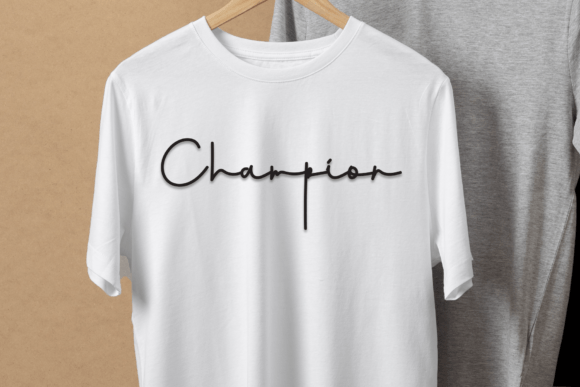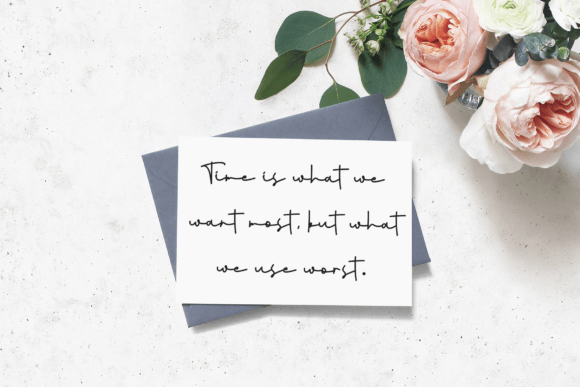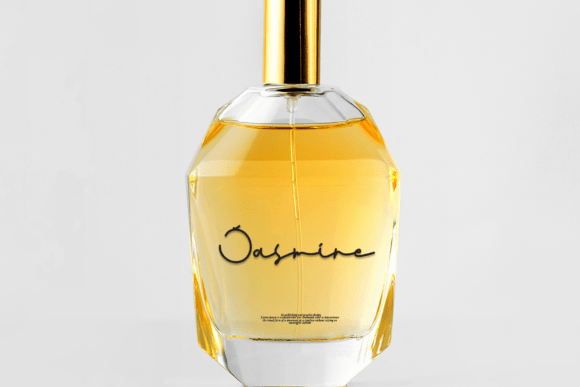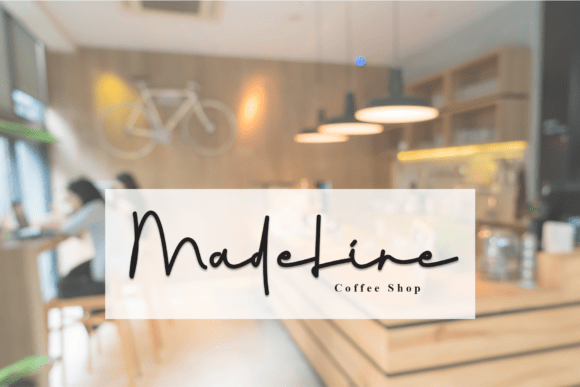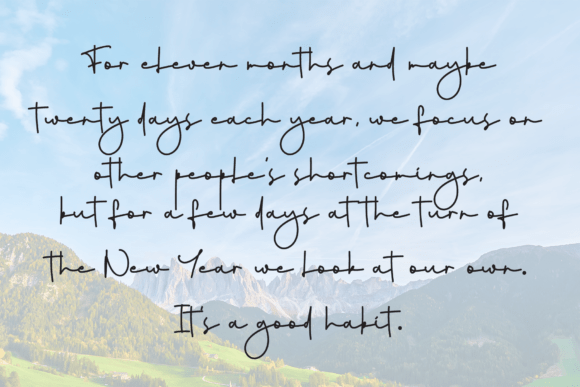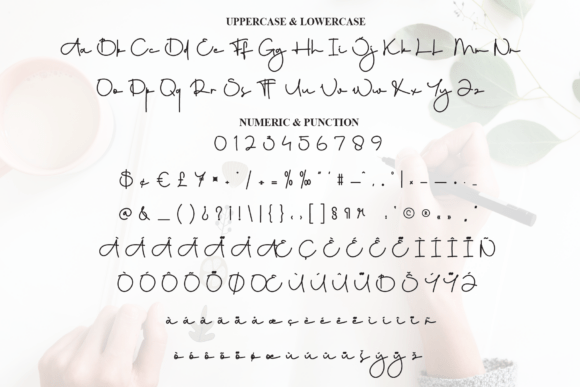
Elevate Your Design with the Timeless Charm of Amelia Signature Font
Have you ever been stuck on a design project, unsure of how to convey the essence of your brand’s personality? You’re not alone. It’s a common creative conundrum that can leave even the most seasoned designers feeling stumped. But what if you had the perfect tool to help you unlock that elusive je ne sais quoi?
Enter the Amelia Signature Font, a luxurious monoline script font that brings a touch of natural, hand-crafted elegance to your designs. Whether you’re creating a logo, personal branding materials, or upscale packaging, Amelia’s refined charm is sure to elevate your identity and leave a lasting impression. As a designer, you know the value of a well-crafted font in setting the tone for your brand’s image. With Amelia Signature Font, you’ll have the perfect tool to convey sophistication, style, and refinement in every design.
Amelia Signature Font Key Features
• Unique Characteristics: The Amelia Signature Font features elegant, flowing lines and subtle flourishes, adding a touch of sophistication to signatures.
• Script Variations: Includes multiple script variations, allowing users to choose the perfect style to match their personal branding.
• Font Weight: Available in Light, Regular, and Bold weights, providing flexibility for users to customize their signature appearance.
Amelia Signature Font Review
As a designer, I was excited to dive into the Amelia Signature Font and see what it has to offer. Overall, I think it’s a solid choice for anyone looking for a beautiful, elegant script font.
• The Amelia Signature Font is incredibly versatile and can be used for a wide range of applications, from invitations to wedding stationery.
• The font is highly customizable, with a range of OpenType features that allow for advanced typography and styling options.
• The Amelia Signature Font is also highly legible, making it perfect for body text or headlines.
• The font may not be suitable for digital applications, as it’s not optimized for screen reading.
• The font is a bit more challenging to use in smaller font sizes, as the strokes can become a bit thin and hard to read.
Overall, I think the Amelia Signature Font is a beautiful and elegant script font that’s perfect for designers looking for a high-end, sophisticated look. While it may have some limitations, I think the benefits far outweigh the drawbacks.
Amelia Signature Font Guide
To get the most out of Amelia Signature Font, try pairing it with a clean and simple sans-serif font. Use the font to create beautiful quotes, titles, and headings. Experiment with different font sizes and styles to add visual interest to your design.
Amelia Signature Font is perfect for:
• Birthday and wedding invitations
• Personalized quotes and messages
• Business branding and marketing materials
• Wedding stationery and decor
Alternatives to Amelia Signature Font for Designers
Raleway Font
Raleway is a modern sans-serif font that is highly legible and versatile. It’s ideal for use in digital design, such as websites and mobile apps, due to its clean and crisp lines. Raleway is a good alternative to Amelia Signature Font for designers who want a professional and elegant look without the signature flair.
Lato is a sans-serif font that is highly adaptable and suitable for a wide range of design projects. It’s a great choice for designers who want a clean and modern look that is still approachable and easy to read. Lato is similar to Amelia Signature Font in terms of its clean lines, but it has a more minimalist feel.
What is the recommended minimum font size for using the Amelia Signature Font in print and digital applications?
The recommended minimum font size for using the Amelia Signature Font in print applications is 12 points, while for digital applications, it’s 14 points. This ensures optimal readability and legibility of the font in various contexts.